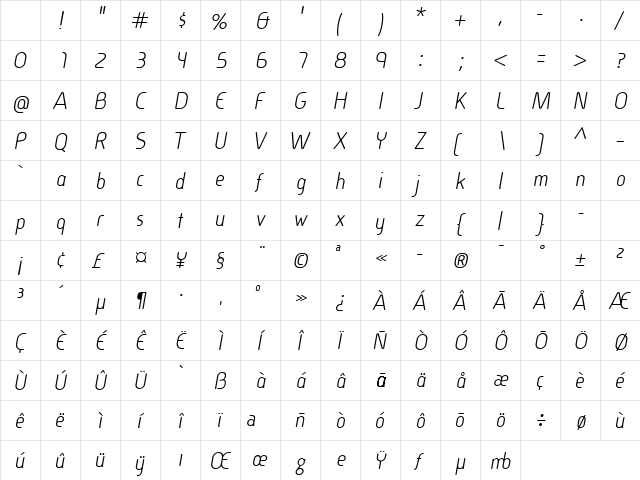
Cineplex LT Regular Italic
Design Context for Cineplex LT Regular
Cineplex LT Regular is a composed and adaptable typeface that performs quietly and consistently across a wide range of design contexts. The slanted form adds forward momentum and visual energy. Its slender proportions lend an understated elegance to any composition.
Pro Tip: Use Cineplex LT Regular for emphasis, pull quotes, and subheadings where its slanted energy can add rhythm to the layout.